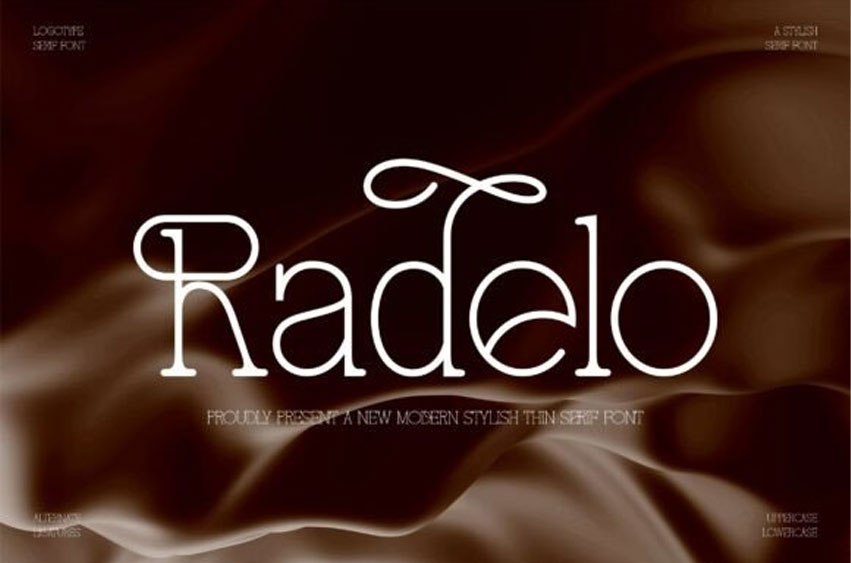
Radelo Font
Radelo Font is a thin, stylish serif font with graceful strokes and delicate ligatures.
It evokes modern elegance and is well-suited for beauty products, signature logos, branding suites, and sophisticated editorial content.